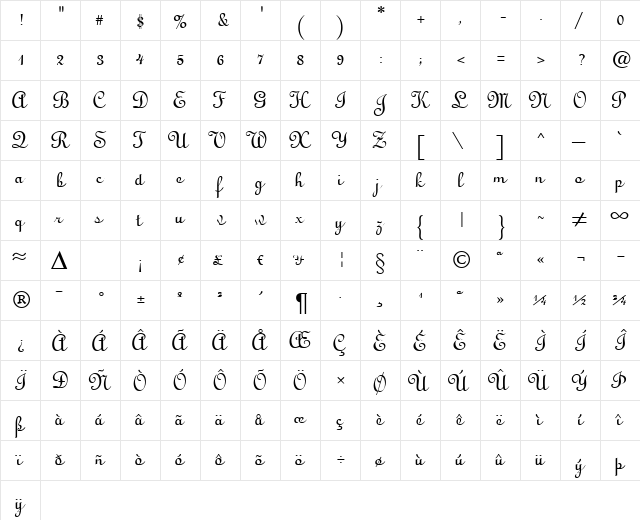
Script-L730 Regular Font Preview
Script-L730 Regular
Script-L730 Regular Font Details
Design Context for Script-L730 Typeface
Script-L730 brings a calligraphic fluidity to the page — its connecting strokes and expressive curves give it an unmistakably human quality.